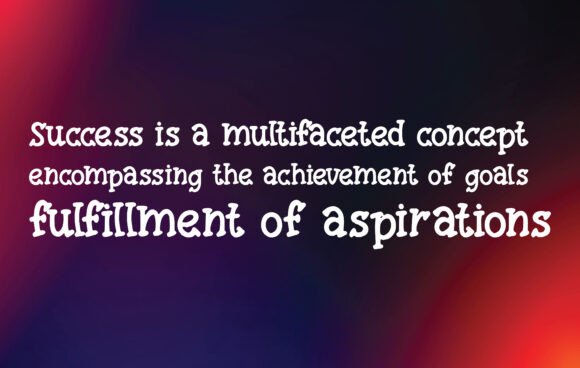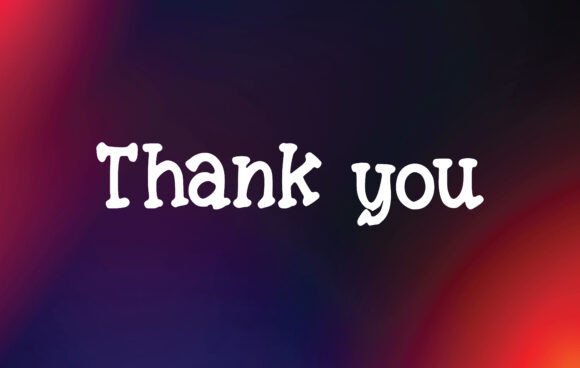
Introduction to Sammy Font
Have you ever found yourself staring at a blank canvas, waiting for inspiration to strike? That’s exactly where I was when I discovered the beautiful Sammy Font. Its elegant and whimsical design has the power to transform even the most mundane ideas into breathtaking works of art. As a designer, I know that finding the right font can make all the difference in bringing a creative project to life.
The Sammy Font is more than just a pretty face – it’s a valuable design resource that can elevate your branding, logos, and quotes to new heights. With its high quality and versatility, it’s the perfect choice for designers looking to add a touch of sophistication to their designs. Plus, with a transparent background option, you can easily integrate it into your project without any hassle.
Key Features of Sammy Font
- Sammy Font comes in 3 styles: Regular, Italic, and Bold, making it a versatile design choice.
- Sammy Font is ideal for use in digital and print projects, from logos and branding to signage and marketing materials.
- With its modern and sleek design, Sammy Font is a great addition to any designer’s font library.
Honest Review: Sammy Font
As a designer, I’m always on the lookout for high-quality fonts that can elevate my creative projects. I recently came across Sammy Font and was excited to give it a try.
Here’s what I like about Sammy Font: ✨
- The font has a modern, sleek design that works well for a variety of creative projects.
However, I did encounter a few limitations: ⚠️
- It’s not as versatile as some other fonts I’ve worked with, so you may need to get creative with your design.
Overall, I’m impressed with Sammy Font and would definitely recommend it for personal or small-scale projects. With its high-quality design and transparent background, it’s a great addition to any design resource library.